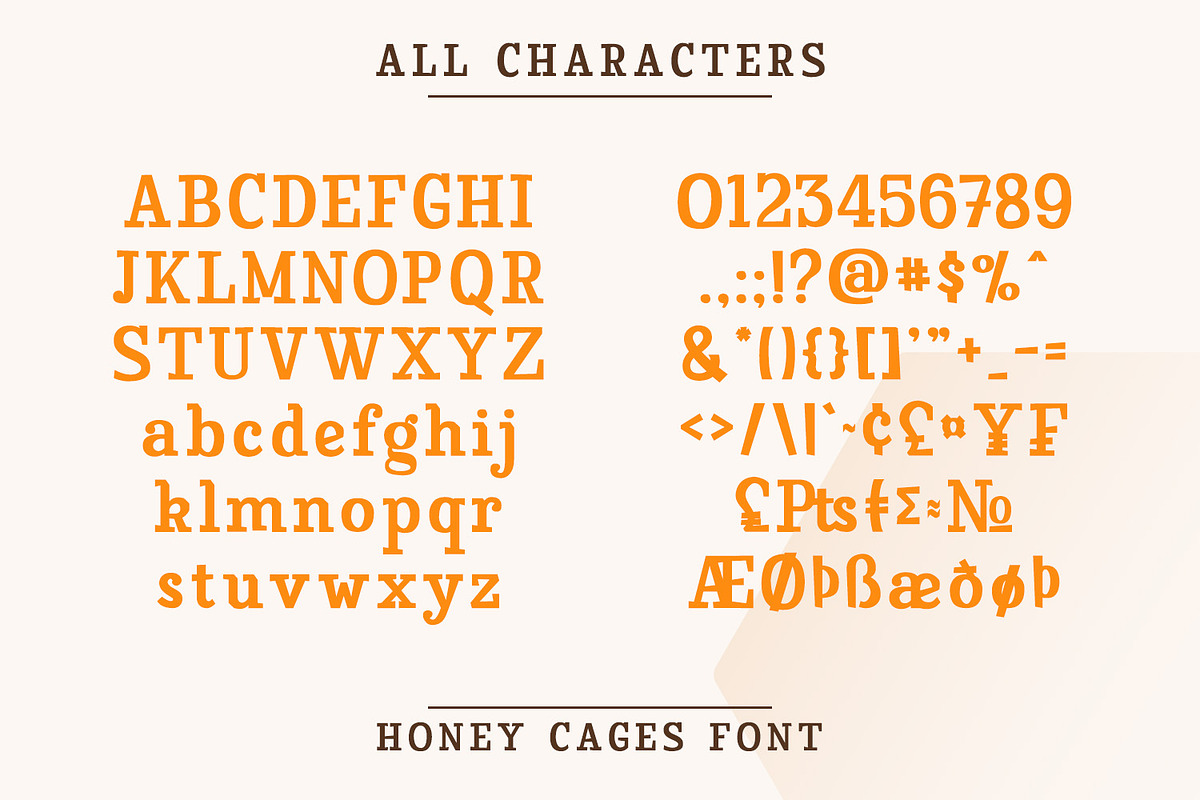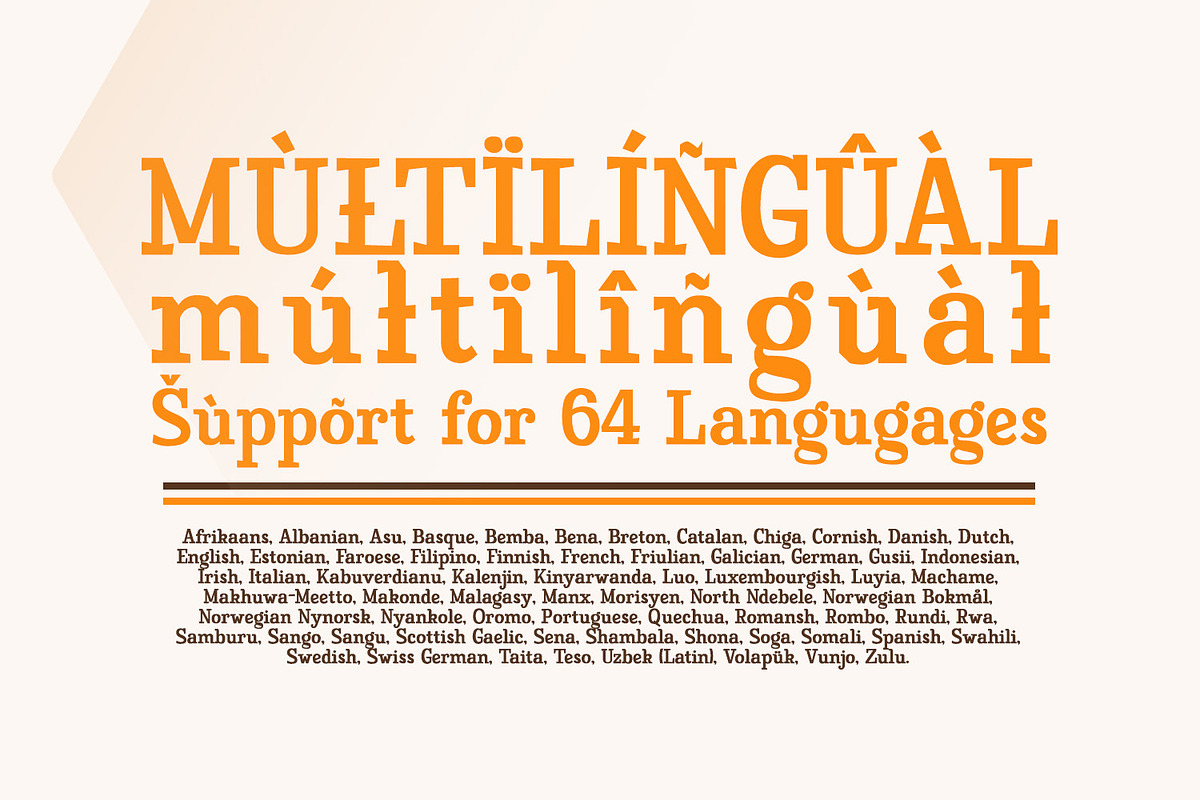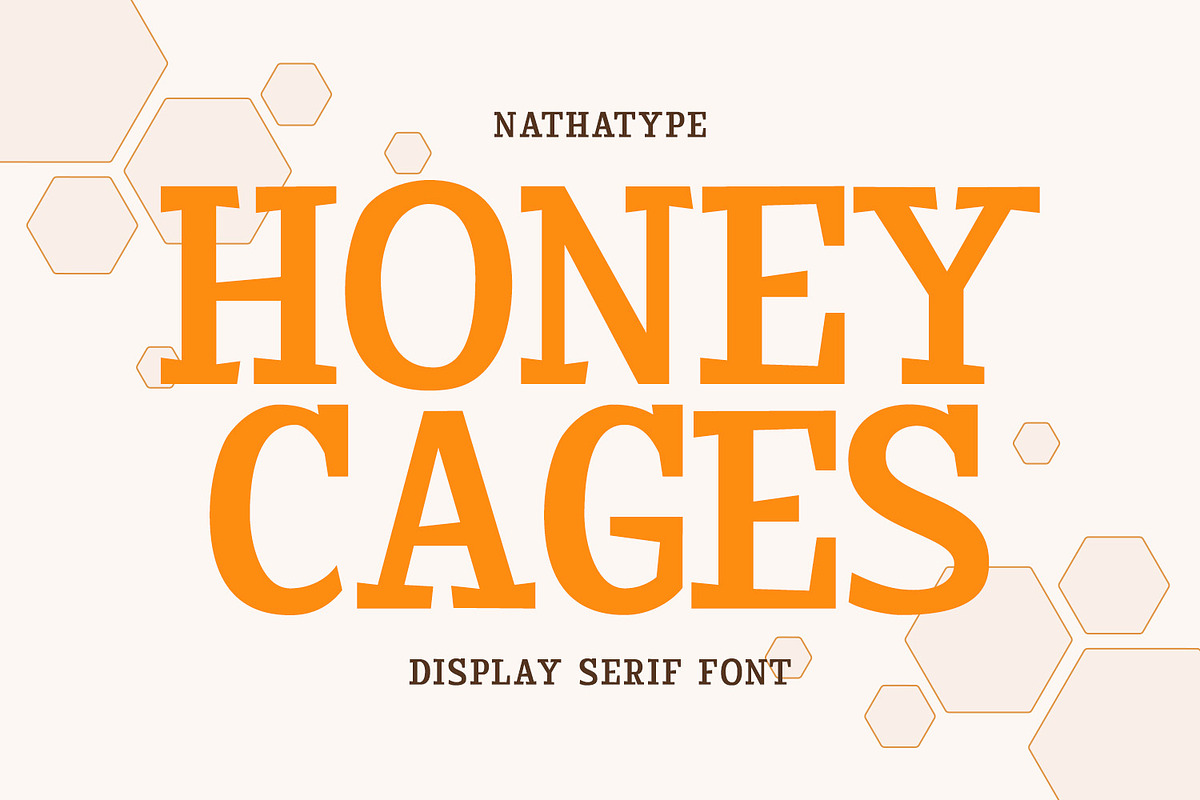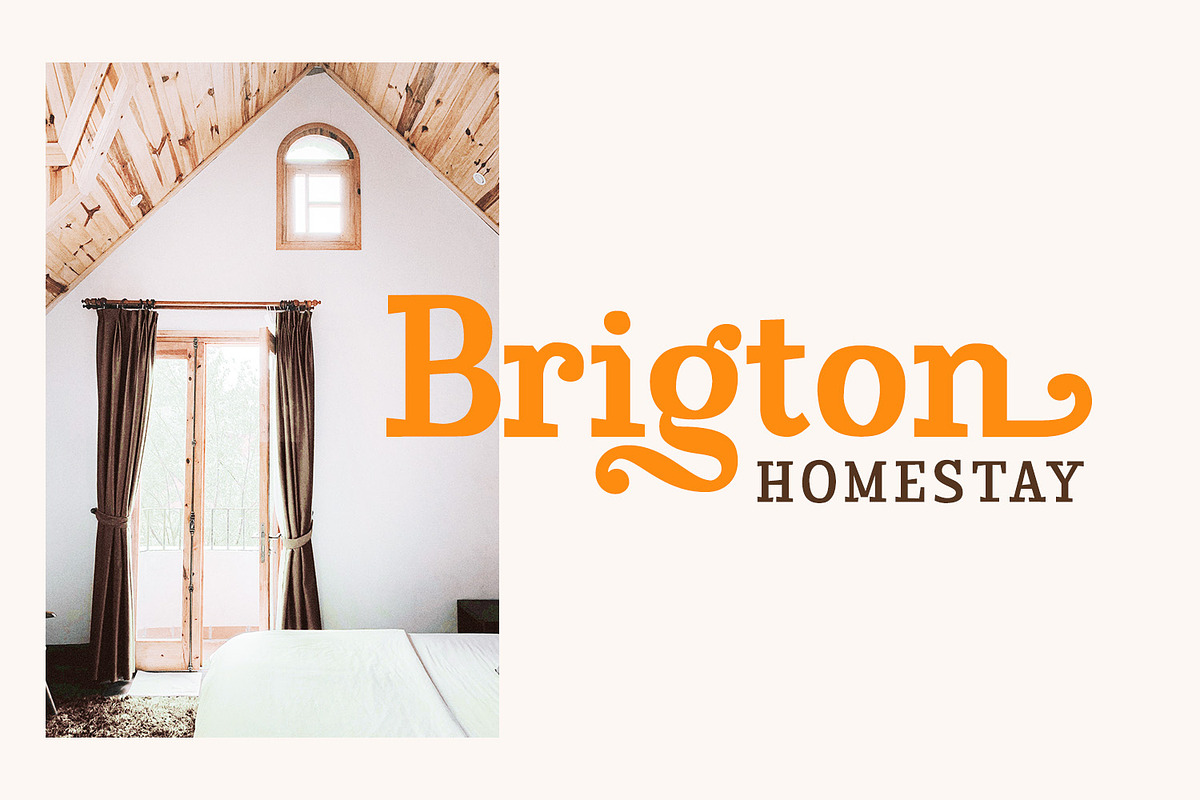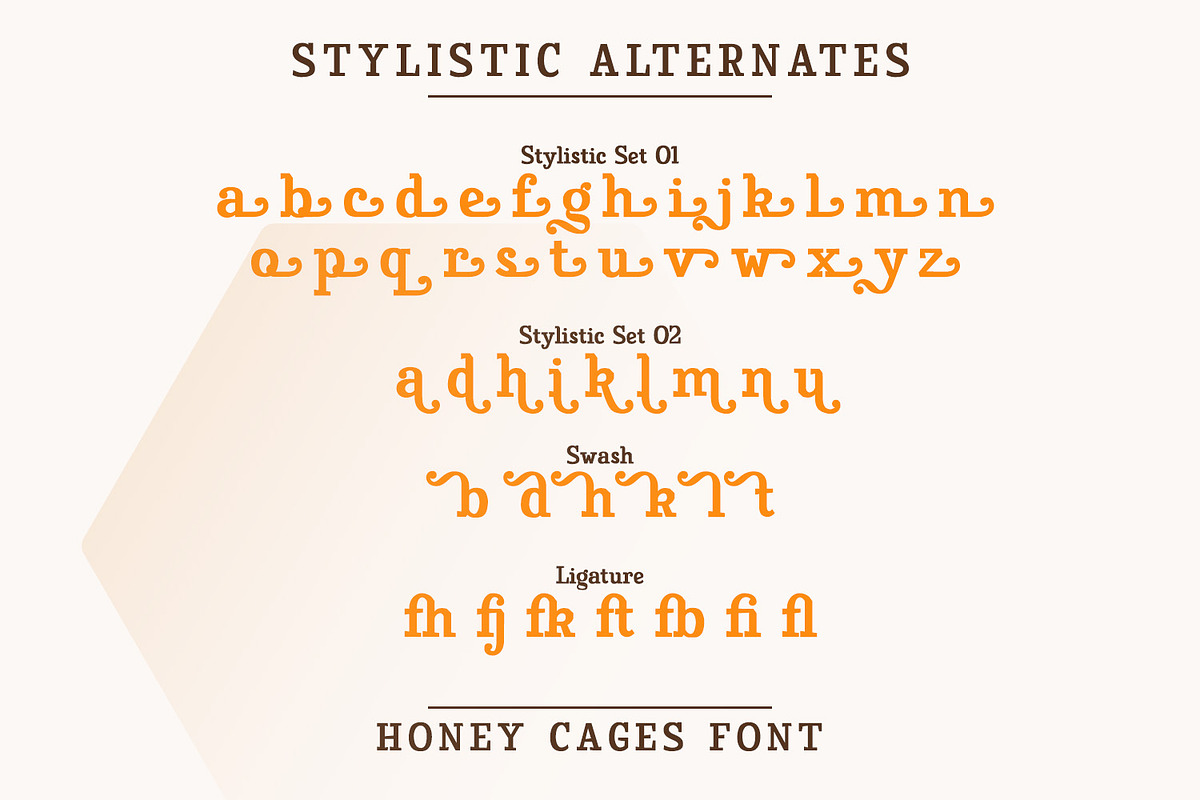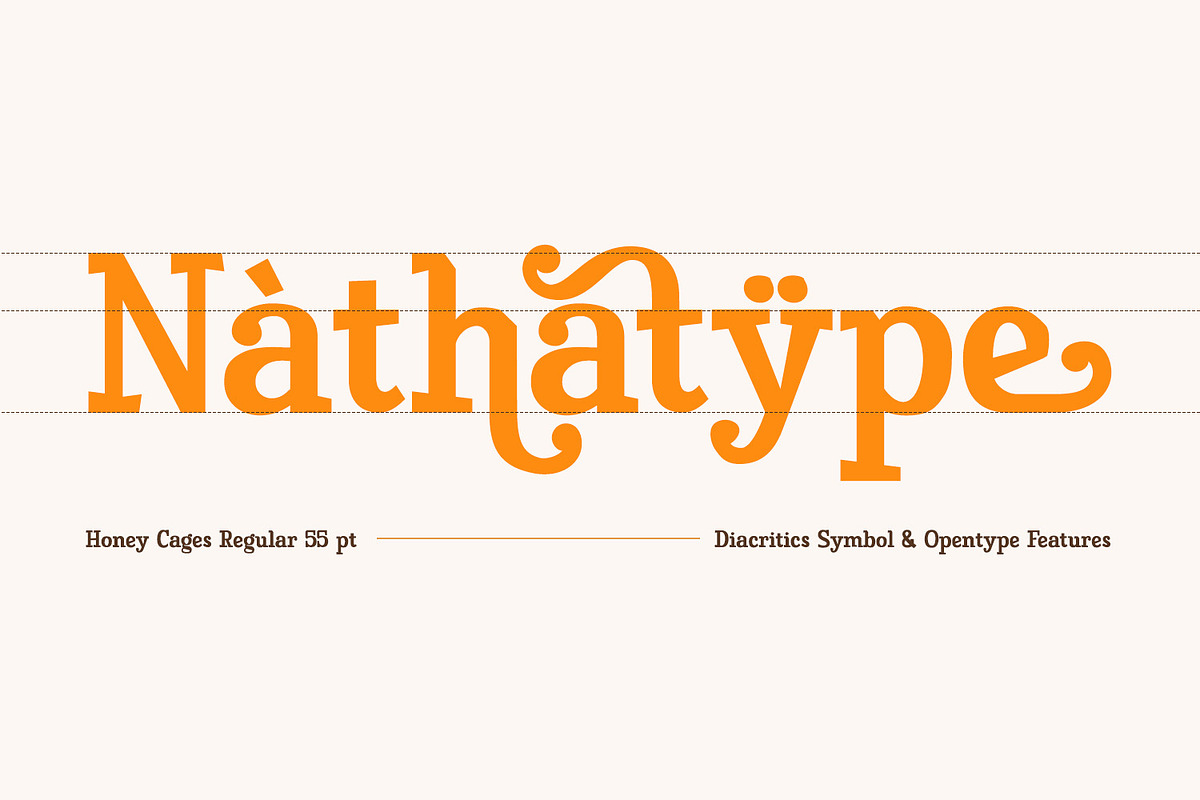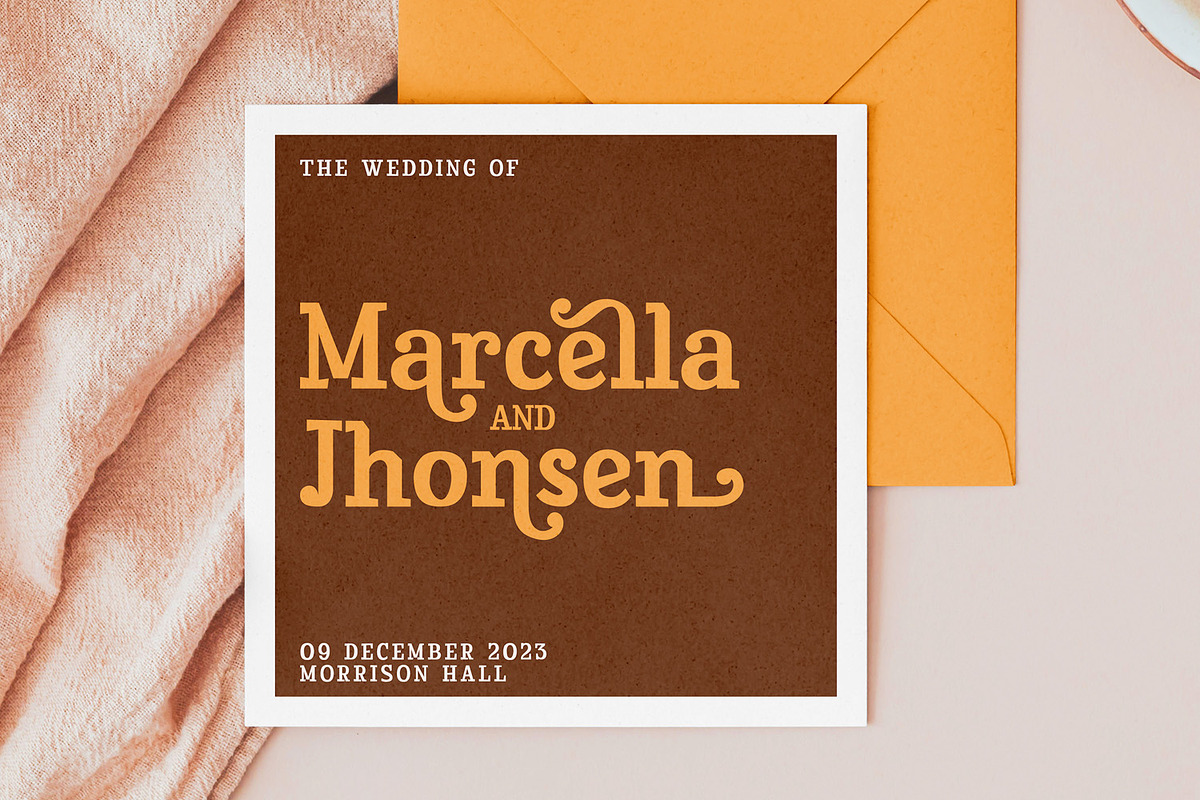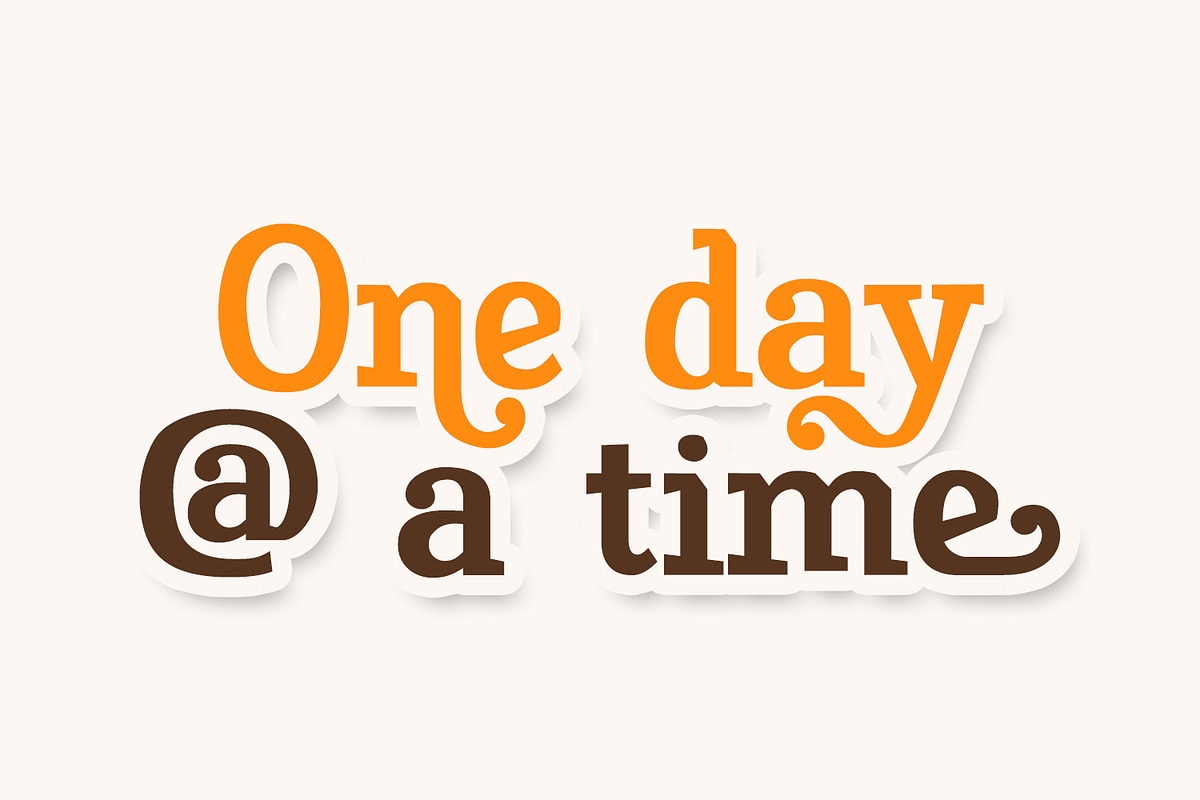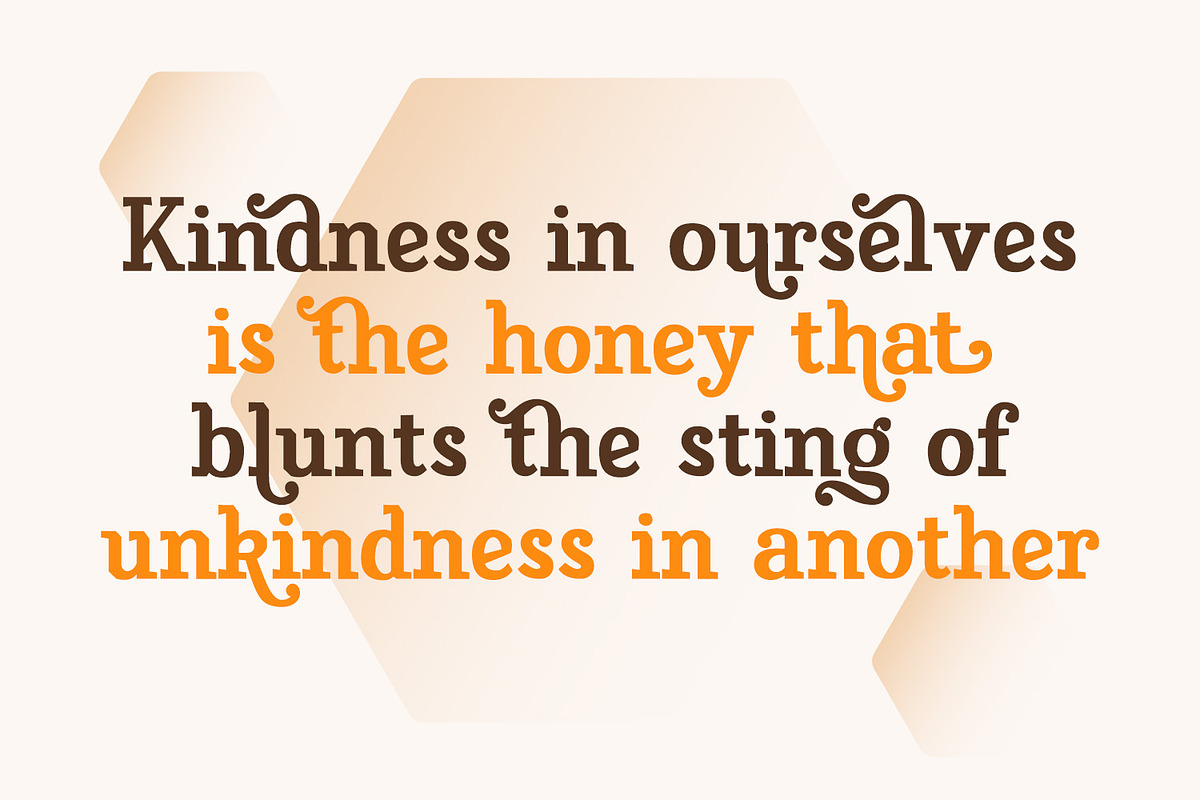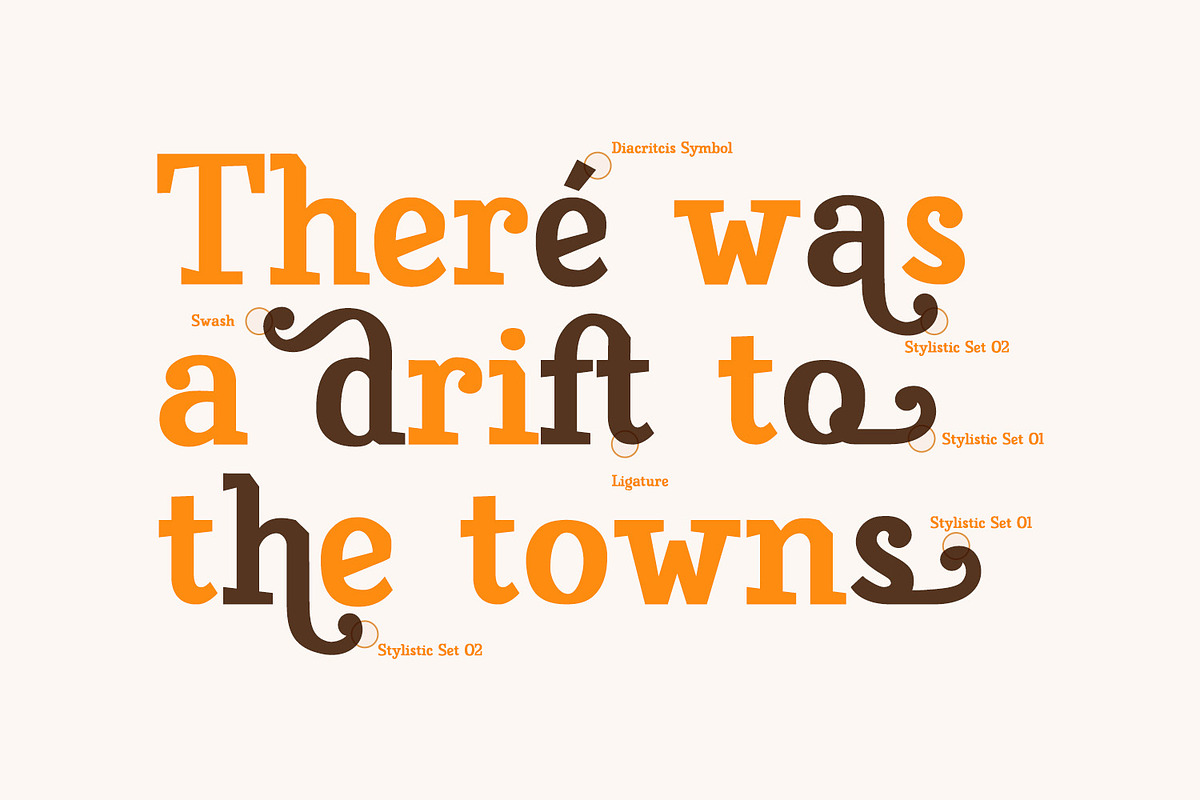
Honey Cages
Honey Cages is a lovely display serif font in thick weights to show friendly, expressive, motional, balanced nuances between functionality and creativity. Generally, the letter shapes are round with consistent heights and wide spaces. There are also curved wipes on some of the letters’ edges to add decorative styles. Use Honey Cages for big-sized texts for a legibility reason. This font comes with some lovely features for you to enjoy.
- Stylistic Sets
Honey Cages font fits for various design projects, such as posters, banners, logos, magazine covers, quotes, headings, printed products, merchandise, social media, etc. Find out more ways to use this font by taking a look at the font preview.